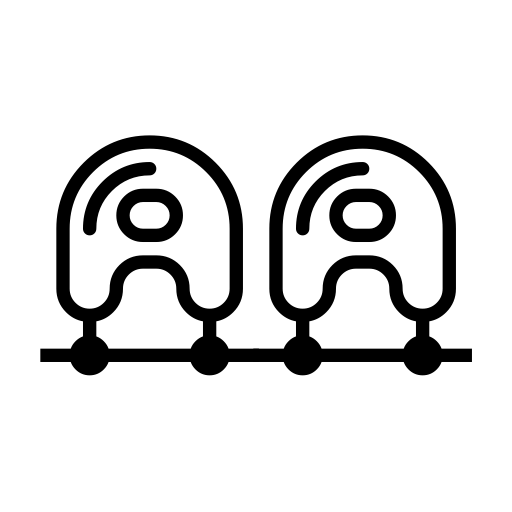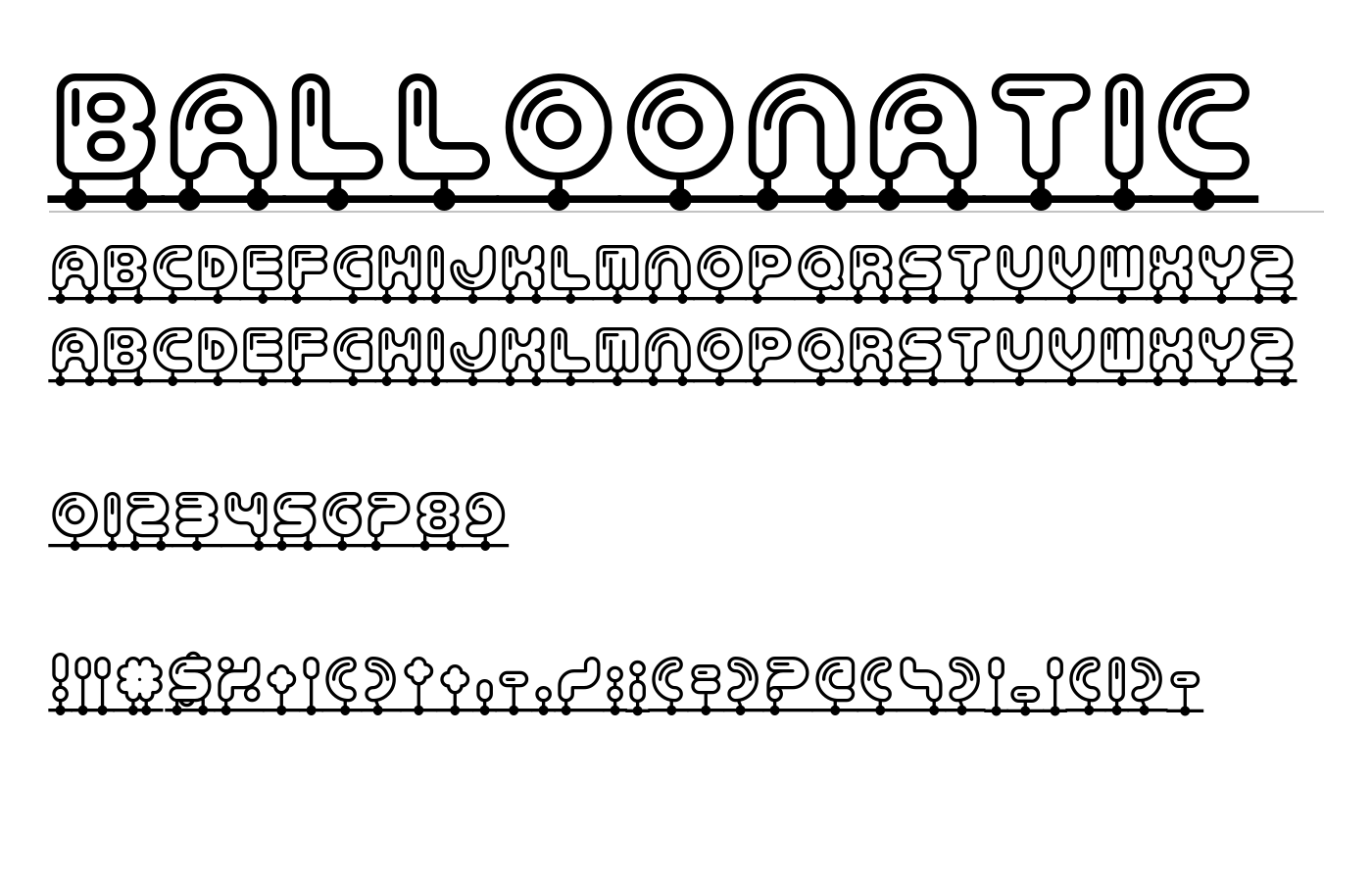
Balloonatic is a playful and modern display font characterized by its bold, rounded letterforms connected by a whimsical dotted baseline, giving it a lively, balloon-like appearance. Its unique geometric outlines and consistent stroke weight create a fun, approachable vibe ideal for creative branding, children’s products, and eye-catching headlines. This font works best in casual, energetic contexts where a touch of individuality and cheerfulness is desired.
Balloonatic Font
About Balloonatic Font